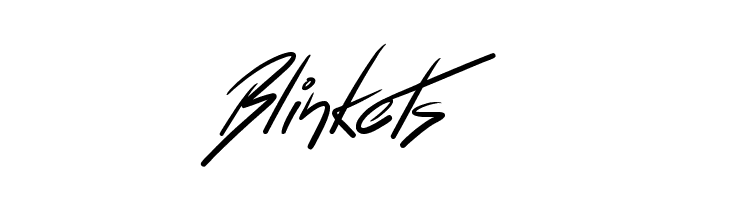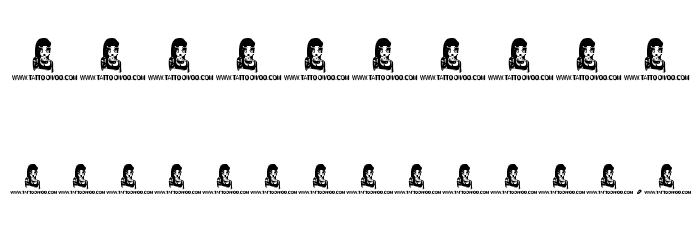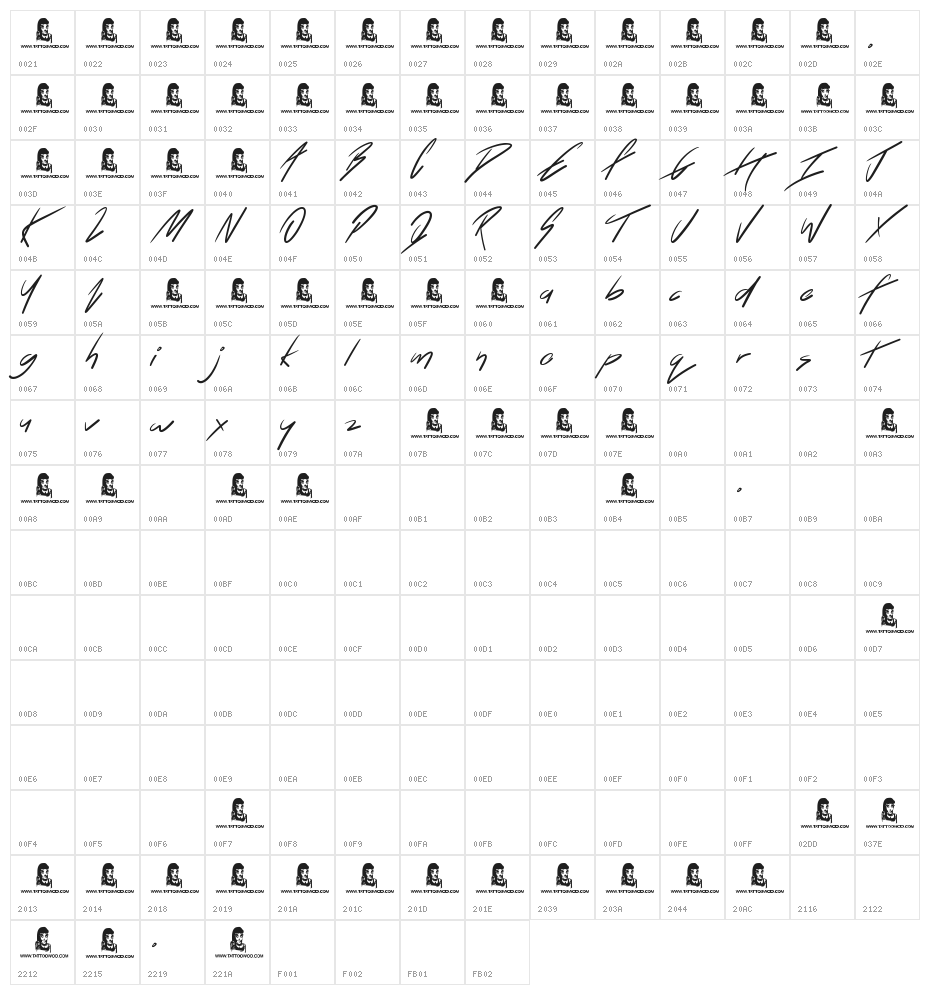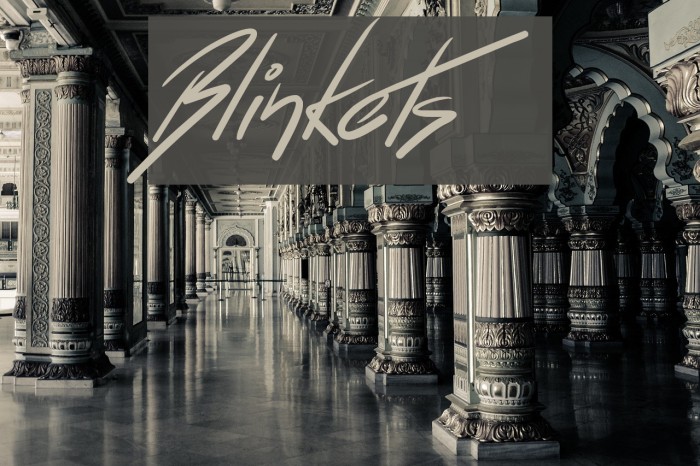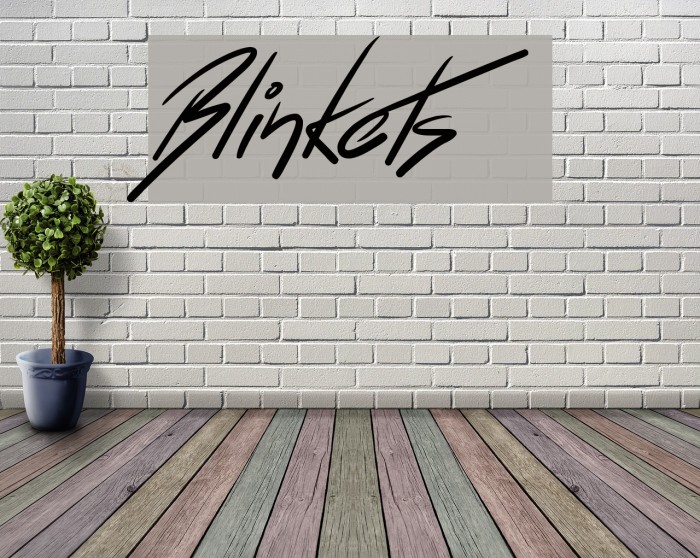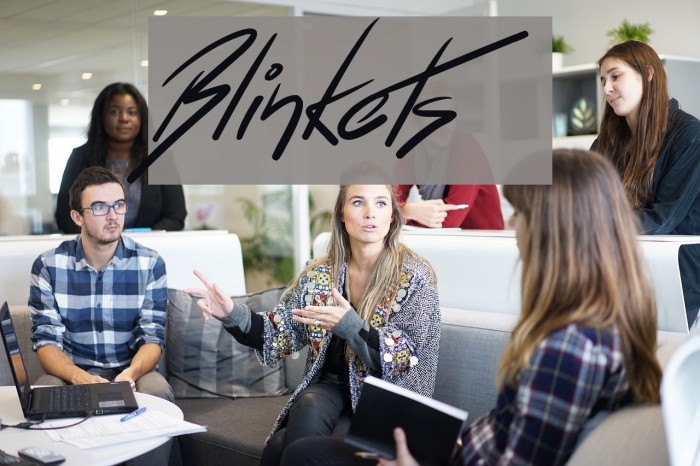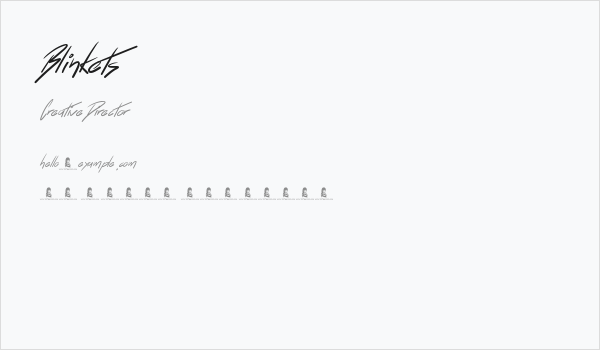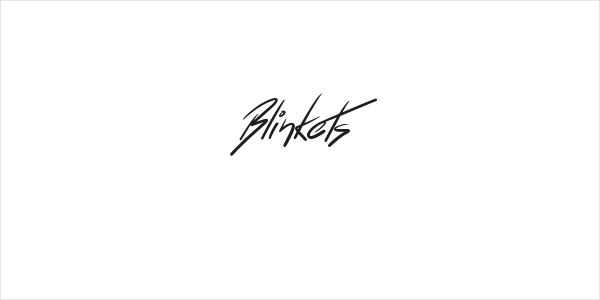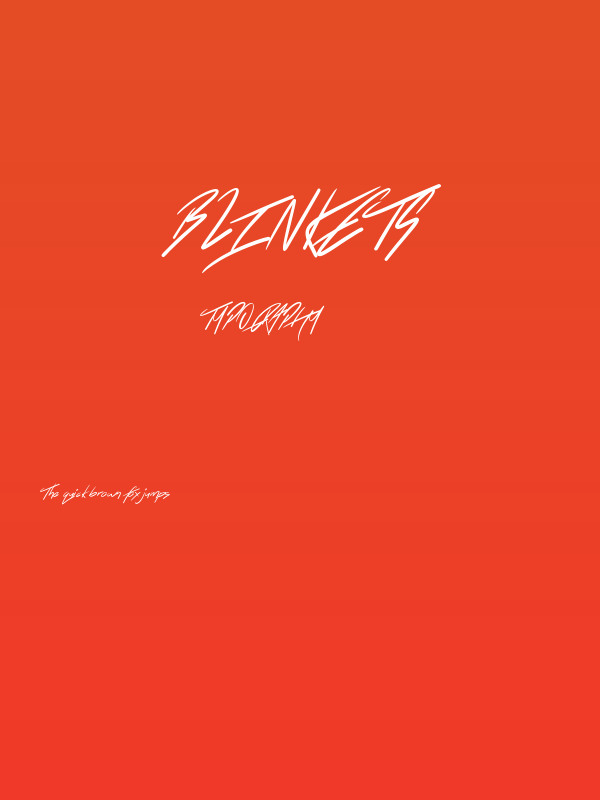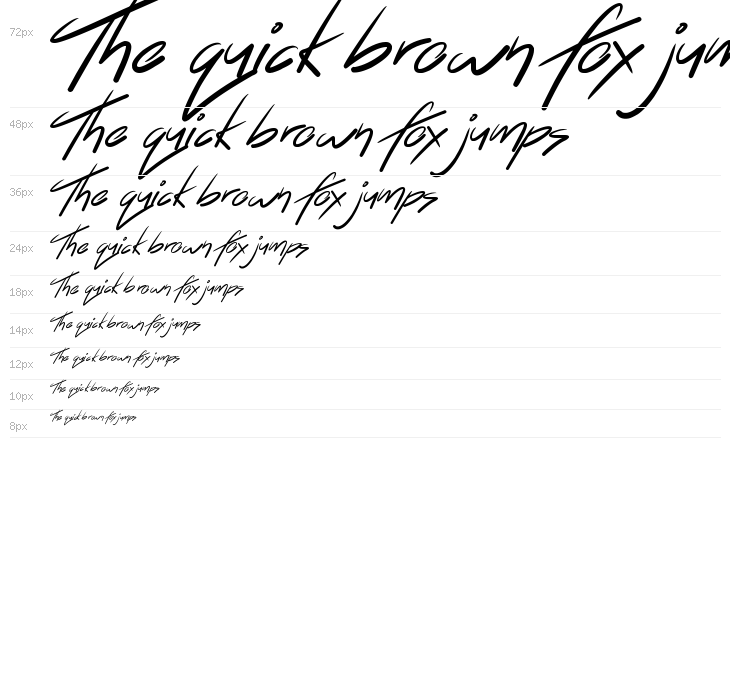
Blinkets Font
Blinkets Description
This font features a dynamic and energetic script style, characterized by its bold and expressive strokes. The letters are connected in a fluid manner, giving it a handwritten appearance that is both casual and artistic. The uppercase letters are tall and slightly slanted, while the lowercase letters maintain a consistent flow, enhancing the overall cohesiveness of the design. The font's unique style is further emphasized by its varying stroke thickness, which adds a sense of movement and rhythm. This font is ideal for projects that require a personal touch or a creative flair.
| Proposed Projects | Ideal for branding, invitations, posters, and creative projects that require a personal touch. |